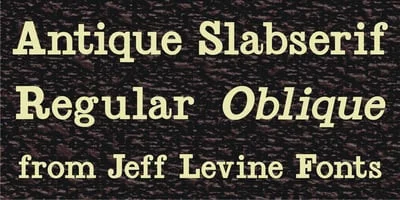
Antique Slabserif JNL Font
Antique Slabserif JNL Font is perfect for vintage poster reproductions, antique auction house branding, historical museum exhibits, classic book cover designs, heritage furniture store signage, old-fashioned saloon marketing, traditional woodworking shop logos, and authentic Wild West themed materials.
Antique Slabserif JNL Font is exciting because it channels the robust character of 19th-century American typography with its bold, commanding letterforms that echo the confidence of frontier commerce and the enduring strength of pioneer craftsmanship. The typeface embodies the spirit of westward expansion and industrial growth, creating an immediate sense of historical authenticity and rugged determination that resonates with audiences who appreciate America's foundational heritage.
Antique Slabserif JNL Font family includes Regular, Bold, Condensed, and Outline variants, complemented by period-appropriate ornamental elements and vintage commercial decorative motifs, offering designers authentic typography tools for creating communications that honor 19th-century American design traditions and frontier entrepreneurship.
Whether you're developing a heritage brand identity, designing historical exhibition materials, or creating vintage-inspired marketing campaigns, Antique Slabserif JNL Font provides unmatched period authenticity and frontier appeal. This distinguished typeface perfectly captures the essence of American industrial typography while maintaining contemporary functionality for modern applications and historical presentations. The font's substantial character structure and pioneer rhythm make it particularly effective for brands that emphasize tradition, craftsmanship, and the kind of enduring quality that built America's greatest institutions. Heritage organizations and antique dealers consistently choose Antique Slabserif JNL Font when projects require typography that communicates historical accuracy, frontier strength, and the kind of authentic American spirit that transformed a wilderness into a nation, making it essential for museum branding, antique marketing, and any application where period typography can celebrate the magnificent legacy of 19th-century American enterprise and the pioneering spirit that continues to inspire entrepreneurs and craftspeople who value tradition, quality, and the timeless principles of honest work.